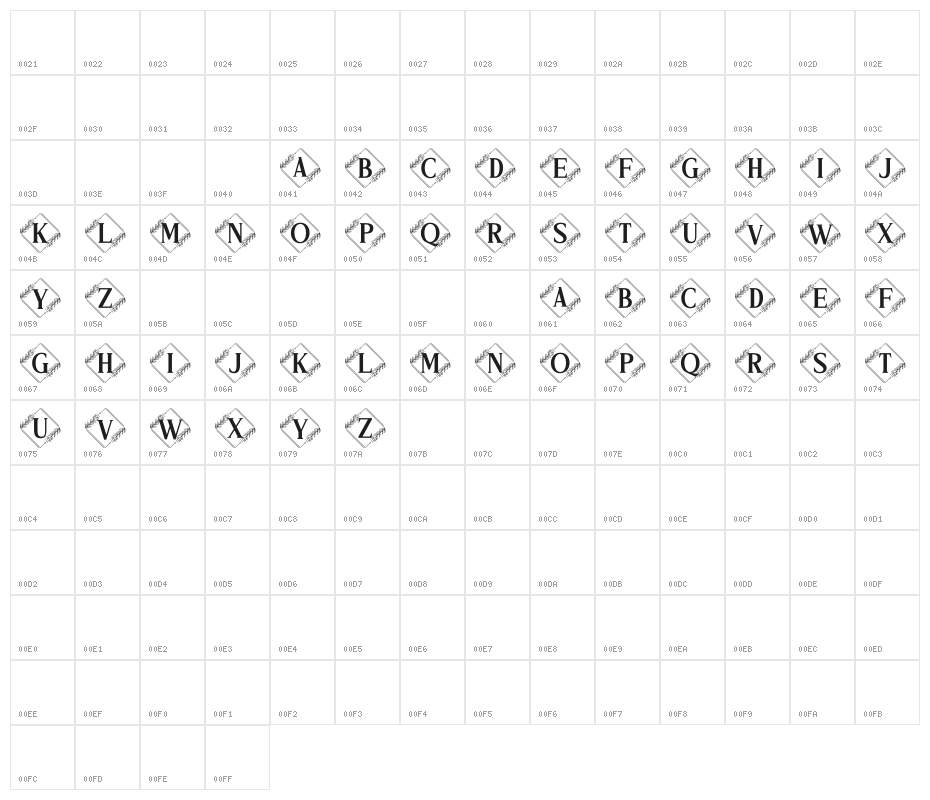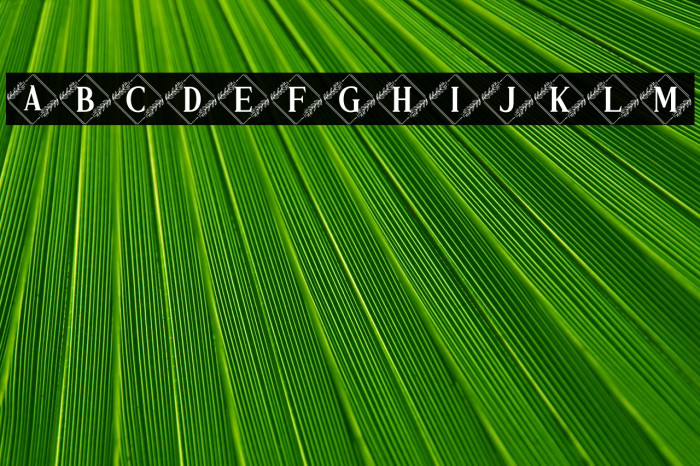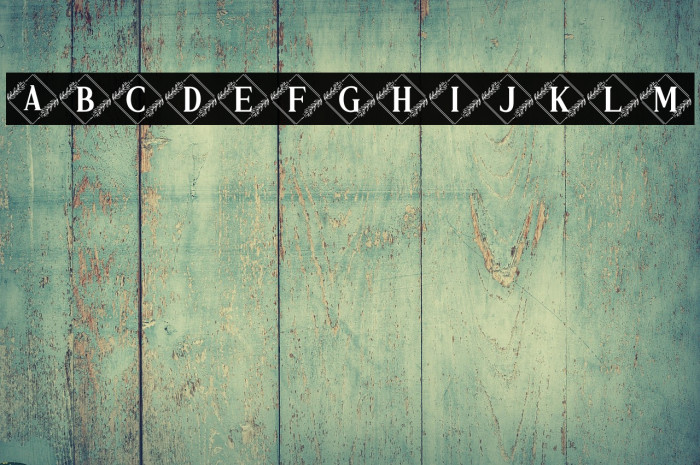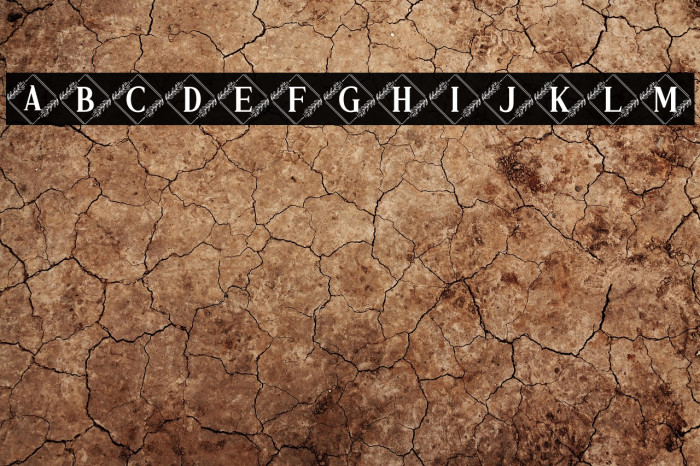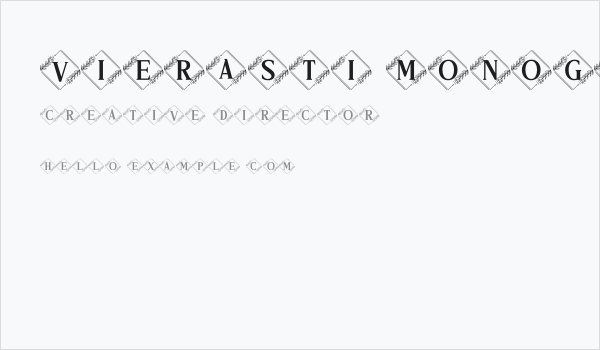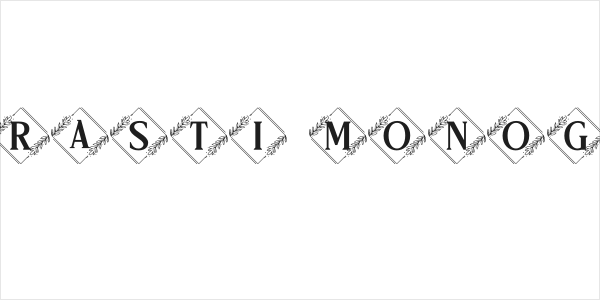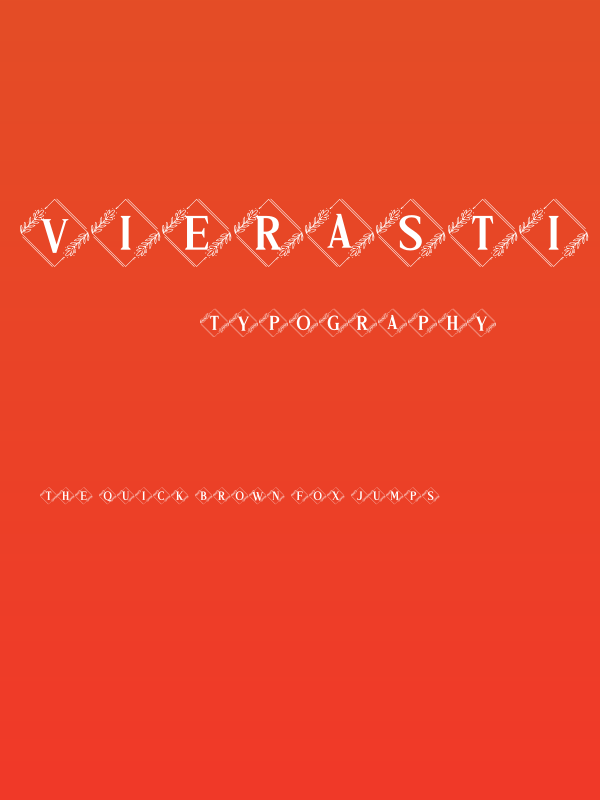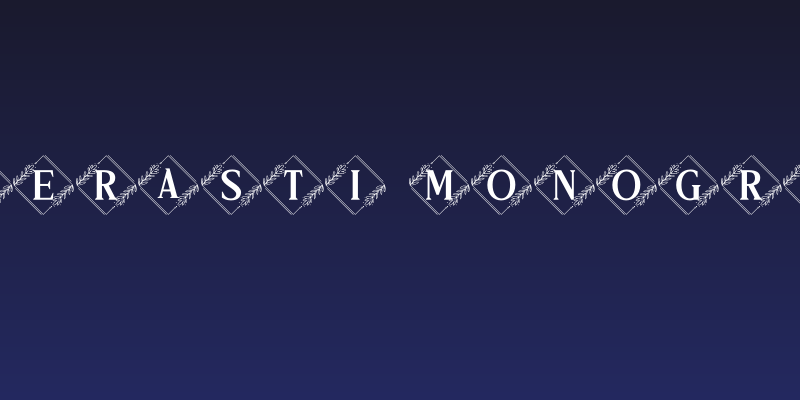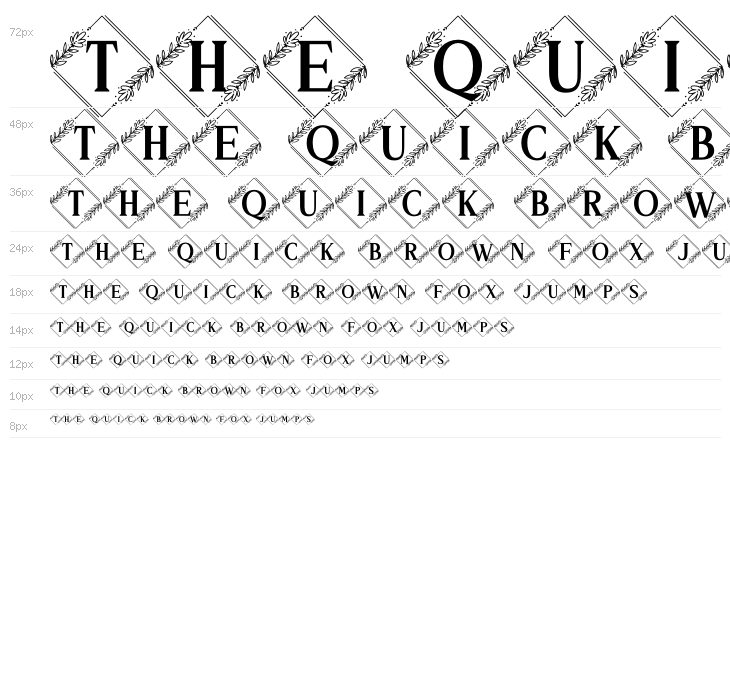
Vierasti Monogram Font
Vierasti Monogram Description
This font features a unique monogram style where each letter is encased within a diamond-shaped border. The letters are bold and have a classic serif design, giving them a timeless and elegant appearance. The decorative border adds a touch of sophistication, making it suitable for formal and upscale designs. The overall style is both classic and decorative, with a strong emphasis on symmetry and balance. This font is ideal for creating personalized monograms, wedding invitations, and luxury branding materials.
| Overall Style | Classic, Decorative |
| Proposed Projects | Ideal for wedding invitations, luxury branding, personalized monograms, and upscale event materials. |